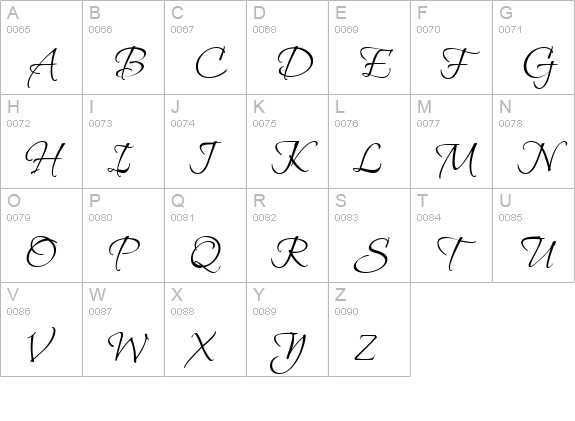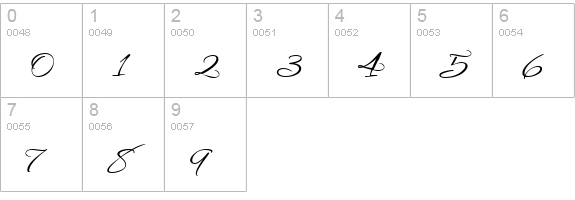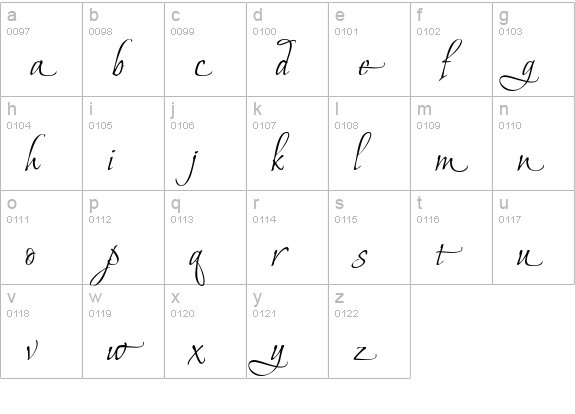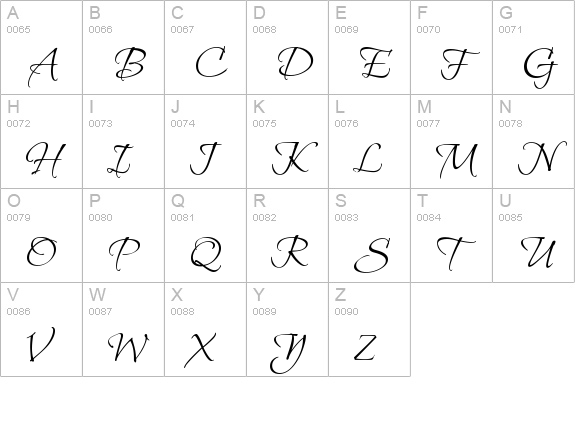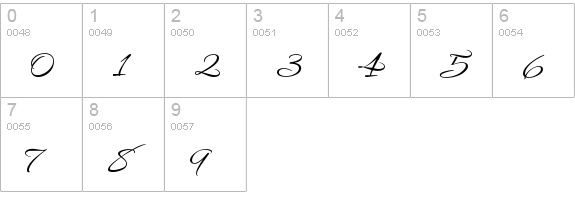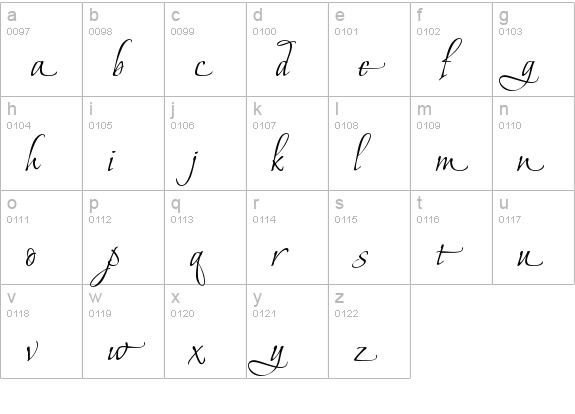
MoonDanceTwo Font Details
MoonDanceTwo font is a whimsical and elegant typeface that captures the essence of dancing under the moonlight. Its flowing curves and delicate lines create a sense of grace and beauty, making it perfect for adding a touch of magic to any design project. This font exudes a sense of mystery and charm, making it ideal for invitations, posters, and other creative endeavors. The best part is that MoonDanceTwo font is completely free to download at FontsMarket.com. This means you can easily access this enchanting font and incorporate it into your projects without any cost. Whether you're designing a wedding invitation or creating a mystical poster, MoonDanceTwo font is sure to bring a touch of elegance and allure to your work. Download it now and let your creativity shine under the moonlit sky.